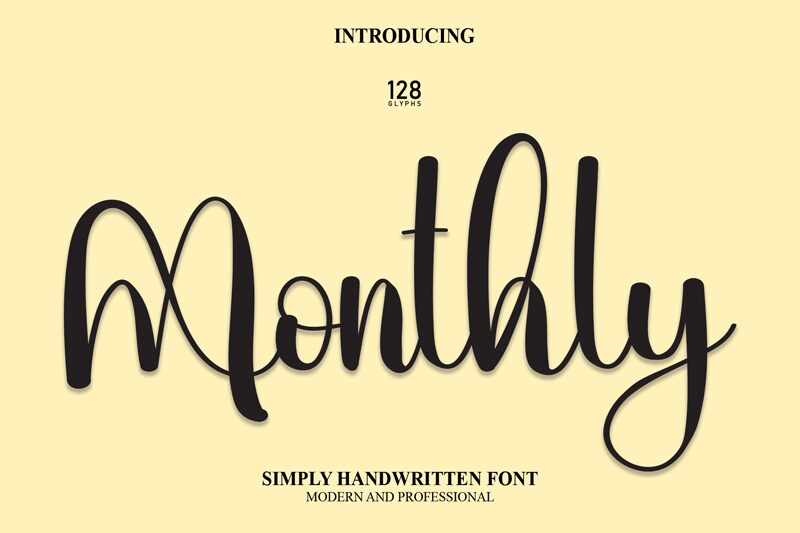
Monthly
Monthly, designed by Scratchones, is a calligraphy font that offers a semi-light weight and an elegant aesthetic. Its fluid strokes and subtle contrasts between thick and thin lines evoke the timeless beauty of hand-lettered artistry. The font's distinct curves and refined characters create a sense of sophistication, making it an ideal choice for projects requiring a touch of class.
The semi-light weight of Monthly gives it a delicate yet readable appearance perfect for invitations, branding, and editorial design. Its calligraphic style adds personality to each glyph while maintaining clarity and legibility at various sizes.
Whether you're crafting wedding stationery or designing a logo that demands grace with every curve, Monthly stands out as an exquisite typeface capable of elevating any creative project with its artistic charm.